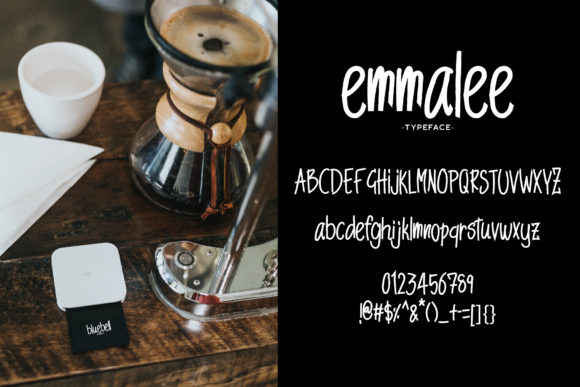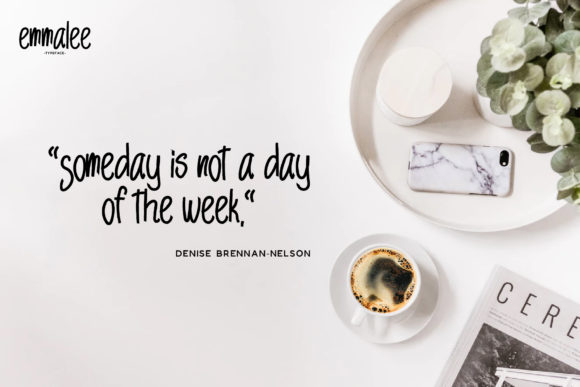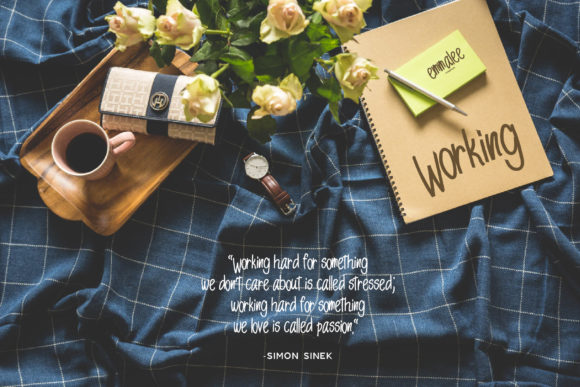
The Emmalee Font: A Whimsical Wonderland for Your Designs
I’ll never forget the moment I stumbled upon the Emmalee font. I was working on a project for a children’s book, and I was struggling to find the perfect font that would capture the playful and imaginative spirit of the story. As soon as I saw Emmalee, I knew I had found my match. Its quirky, handwritten charm instantly transported me to a world of wonder and creativity. In this article, I’ll share my love for Emmalee, its unique features, and provide a comprehensive guide on how to use it in various design platforms.
An Honest Review of Emmalee
What I Love About Emmalee
- ✨ Unique and quirky script that radiates authenticity
- ✅ Whimsical and child-like charm that’s perfect for creative projects
- 💫 Supports OpenType features, glyphs, and stylistic alternates for added versatility
- 🎨 Highly legible, even at smaller font sizes
While Emmalee is an amazing font, it’s not without its quirks. Here are a few things to keep in mind:
- 🤔 Some letters may appear a bit irregular or imperfect, which can be a deliberate design choice but might not be suitable for all projects.
- ⚠️ As with any script font, it may not be the best choice for body text or long-form reading.
The Backstory of Emmalee
Emmalee was designed with the intention of capturing the essence of childhood wonder and imagination. Its creator aimed to craft a font that would evoke a sense of playfulness and creativity, while still maintaining a level of sophistication and elegance. The result is a font that’s both unique and versatile, perfect for a wide range of design projects.
Q: What makes Emmalee so special?
A: Emmalee’s unique blend of whimsy and sophistication makes it a standout font. Its quirky, handwritten charm and support for OpenType features, glyphs, and stylistic alternates make it a versatile choice for designers.
Q: Is Emmalee suitable for body text?
A: While Emmalee is a beautiful font, it’s not ideal for body text or long-form reading. Its script nature and quirks make it better suited for headings, titles, or short paragraphs.